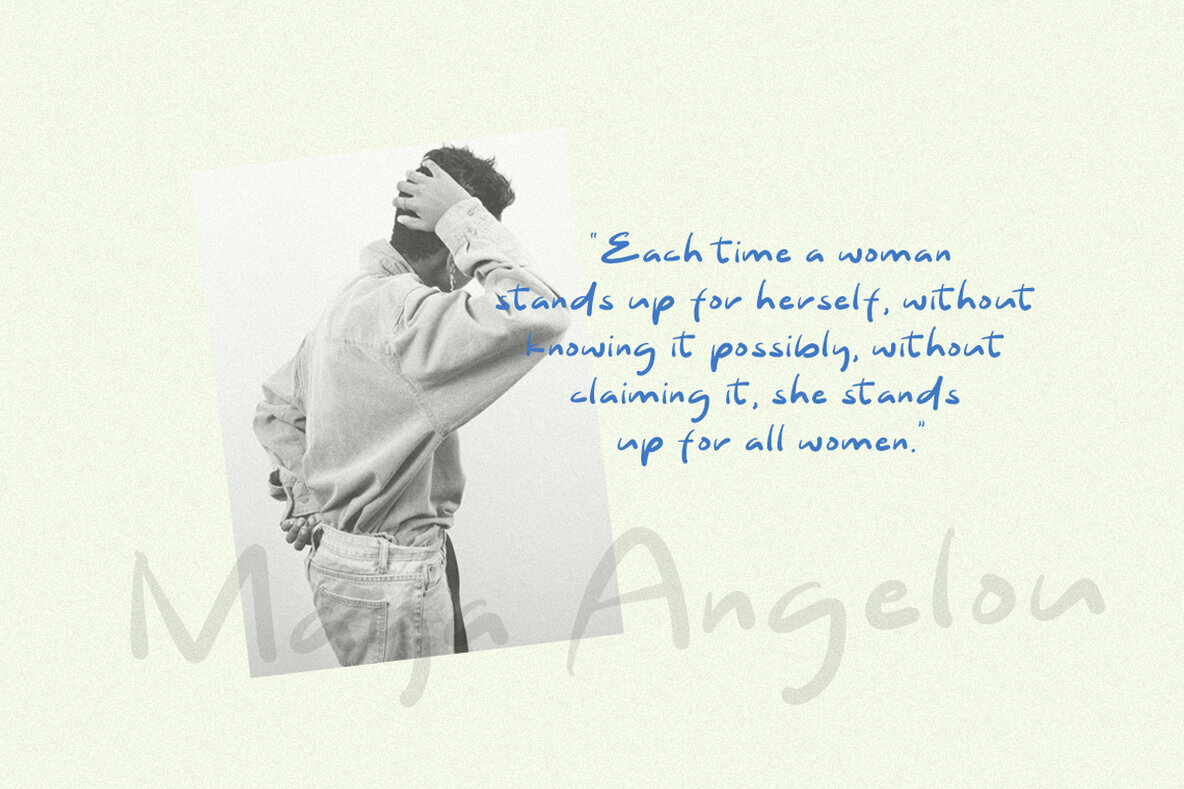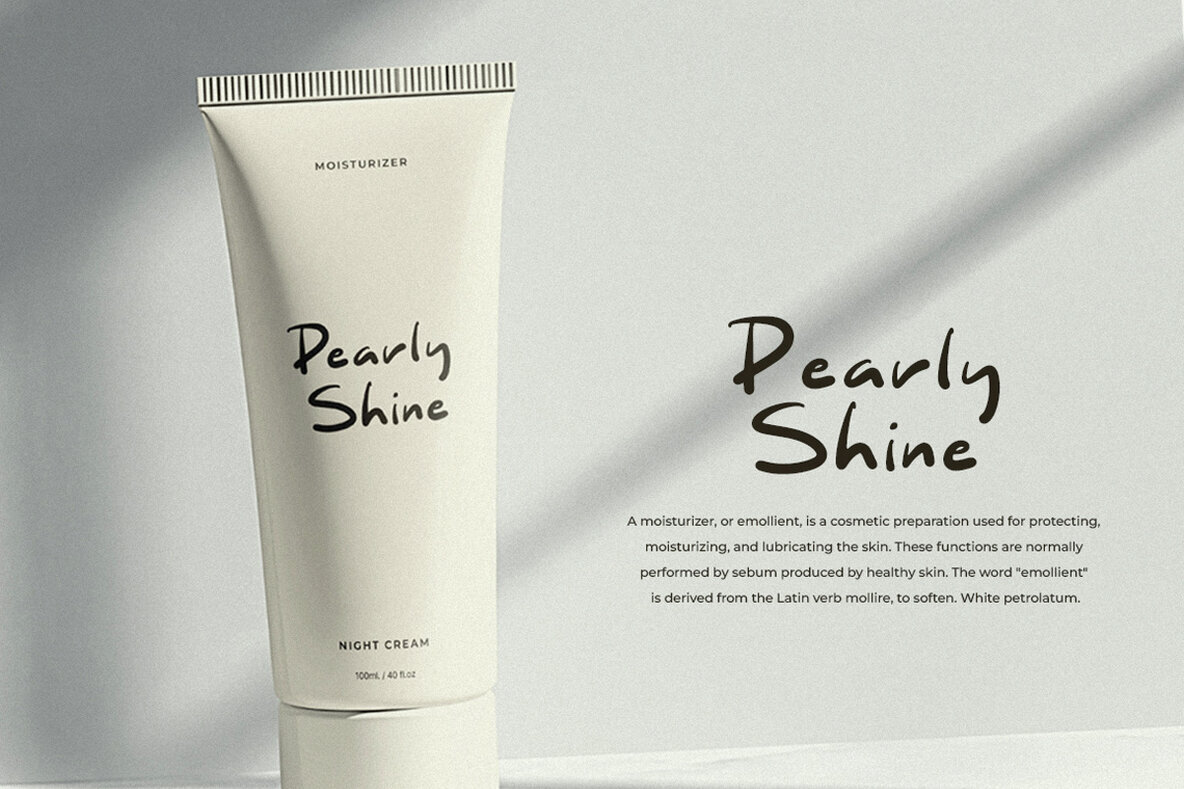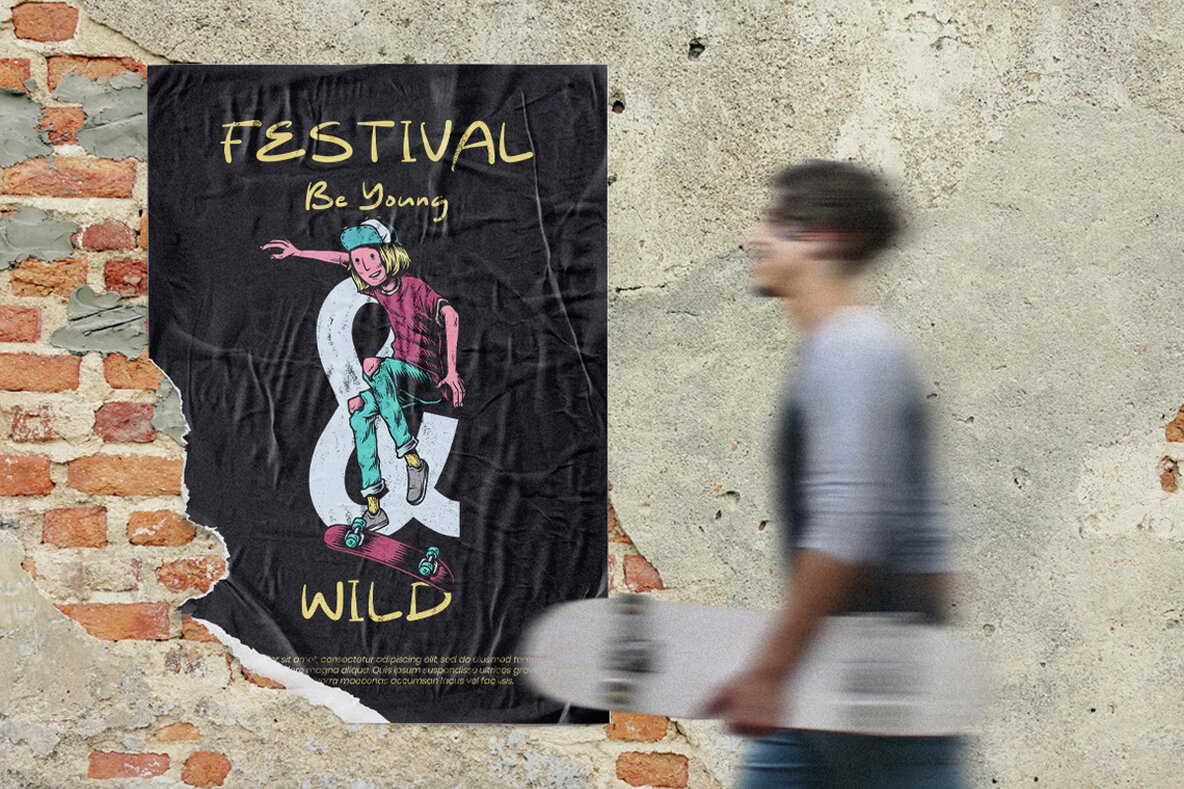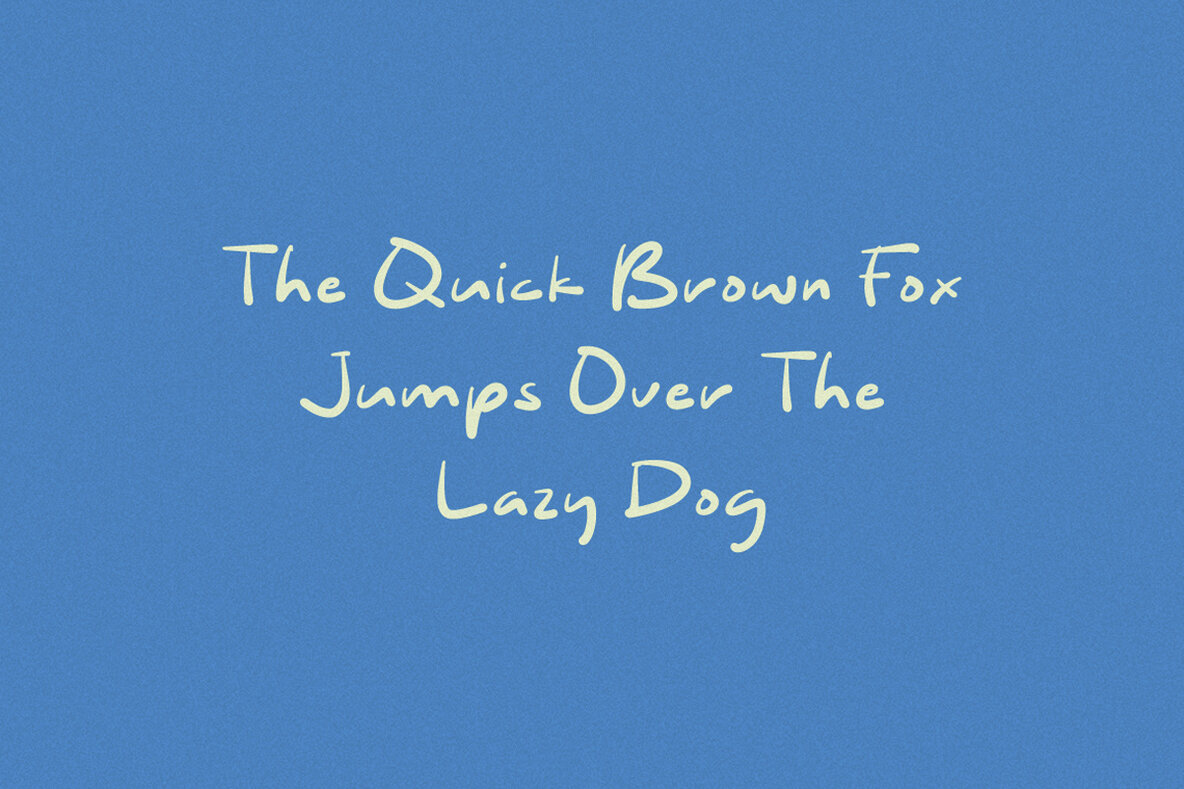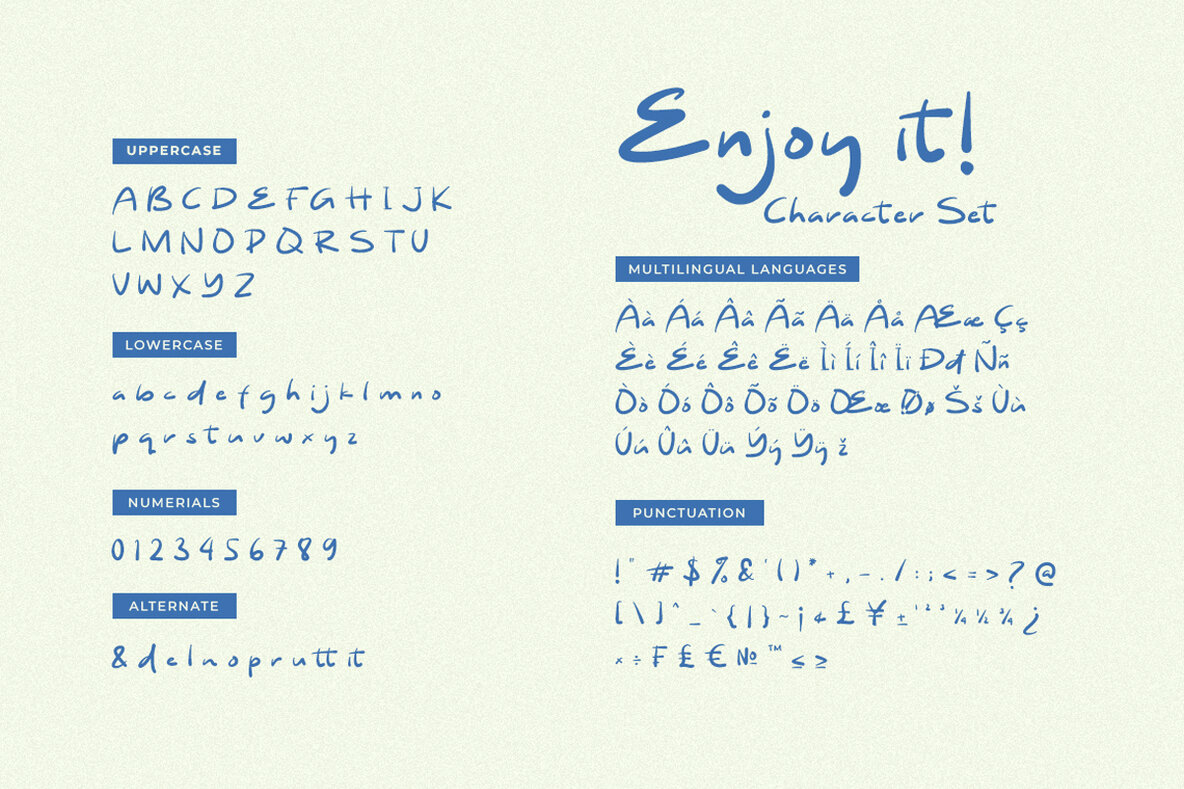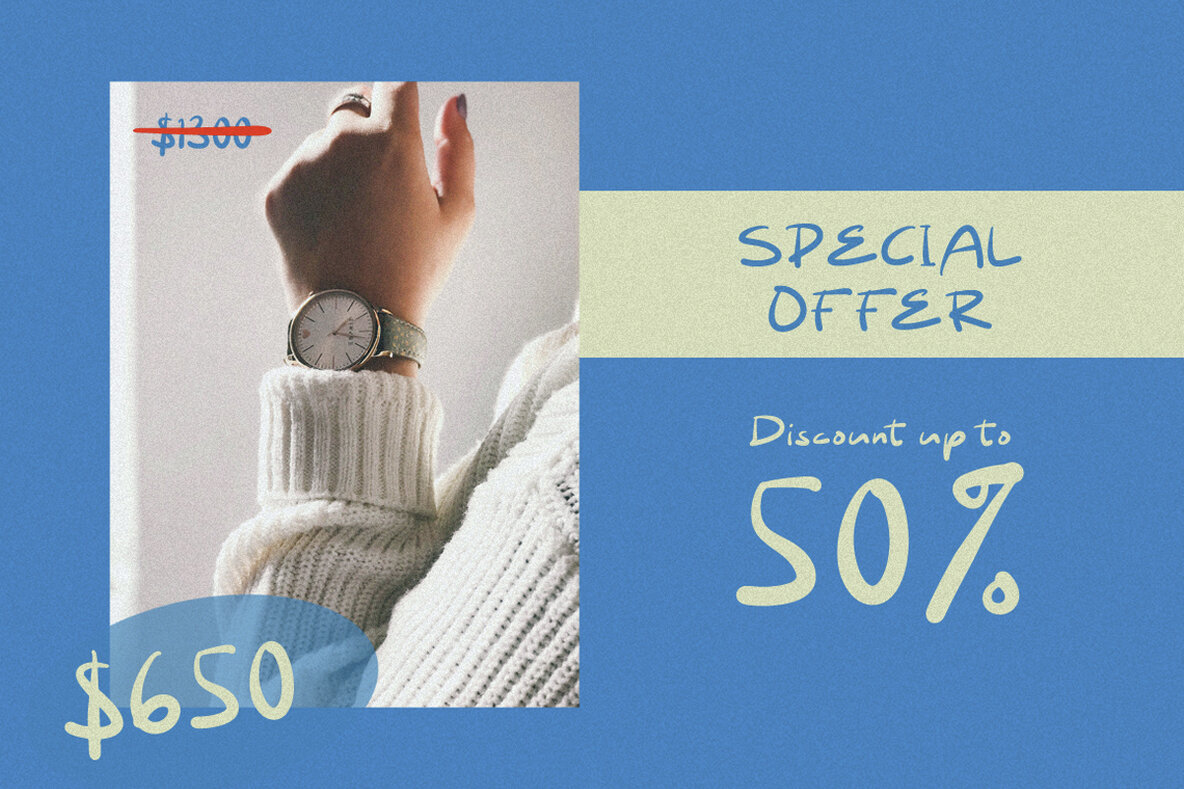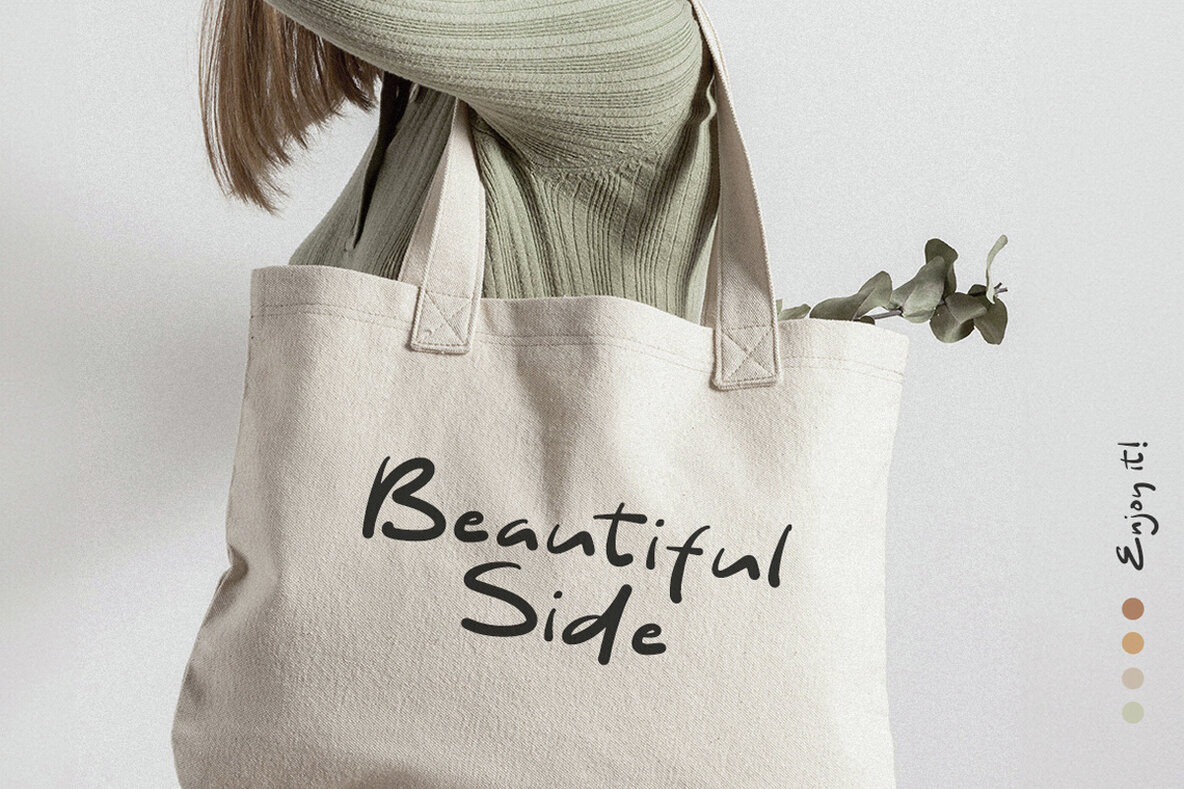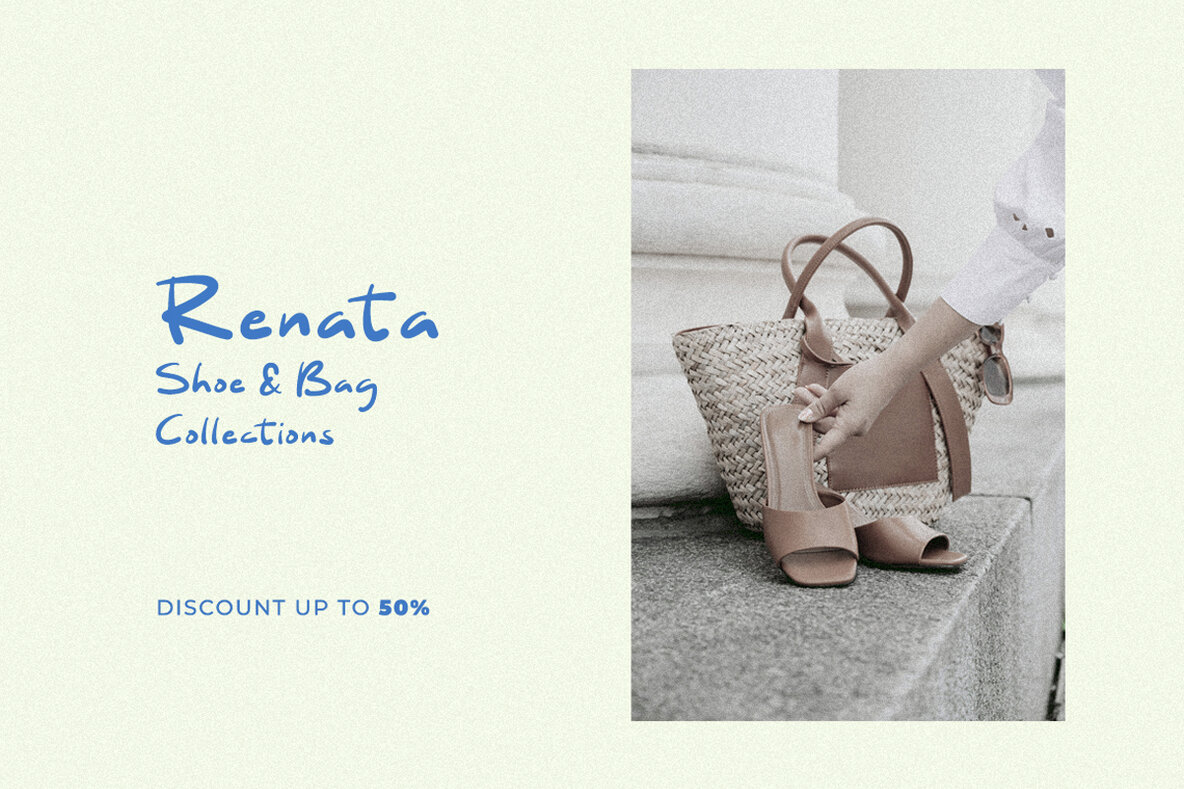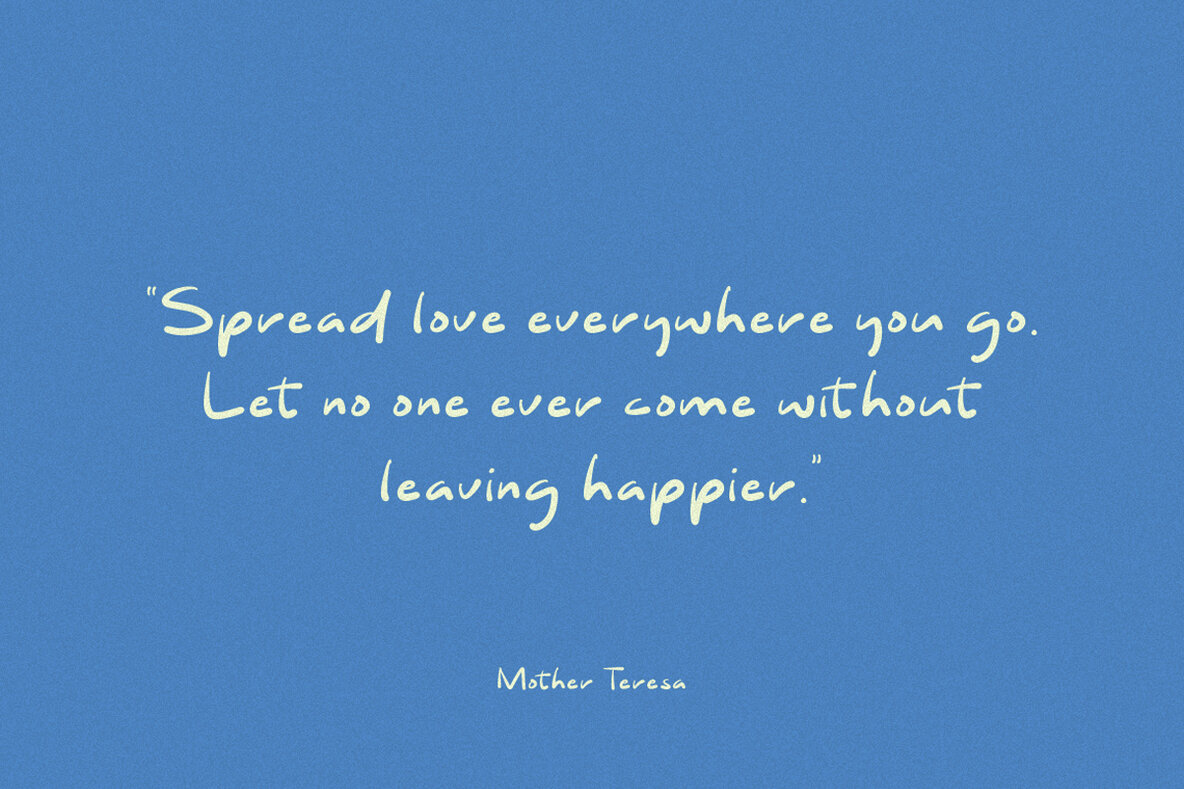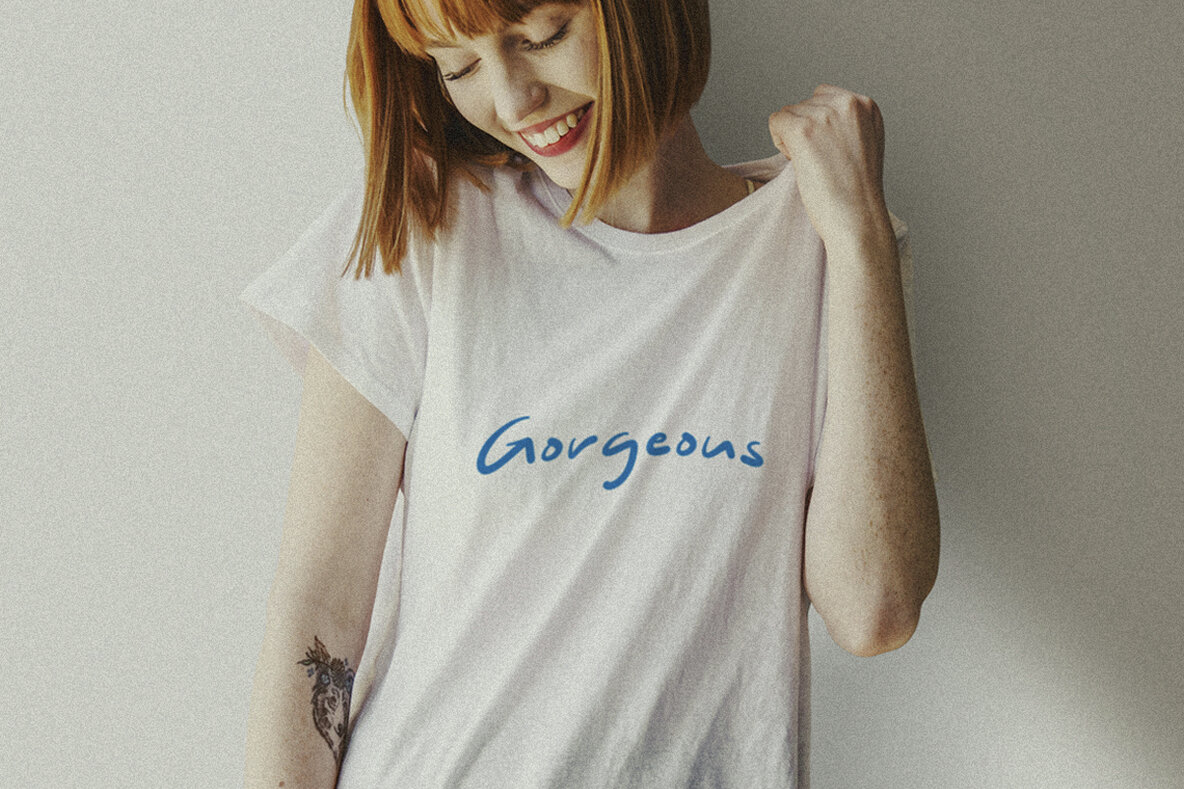
Autrey Brown Font
Autrey Brown Regular
Autrey Brown is a lively and organic handwritten font, ideal for a range of creative projects. Its playful character makes it suitable for crafting logos, watermarks, and branding materials that stand out. The font’s natural flow adds a personal touch to wedding invitations, creating a warm and inviting feel. Additionally, its versatility lends itself well to quotes and taglines, capturing attention with a unique flair.
With Autrey Brown, designers can effortlessly infuse a sense of personality into their work, making it perfect for projects that require a touch of individuality. Whether you’re designing for personal use or professional needs, this font offers a charming aesthetic that complements a wide array of design themes. Embrace the creativity it inspires, and let your imagination take the lead.